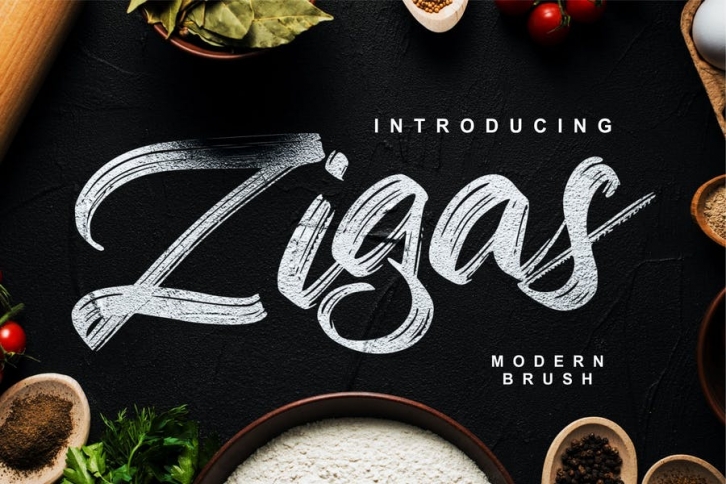
Zigas | Modern Brush Font with a calligraphy style, So beautiful on invitation like greeting cards, branding materials, business cards, quotes, posters, and more!
- Alternates and Ligatures